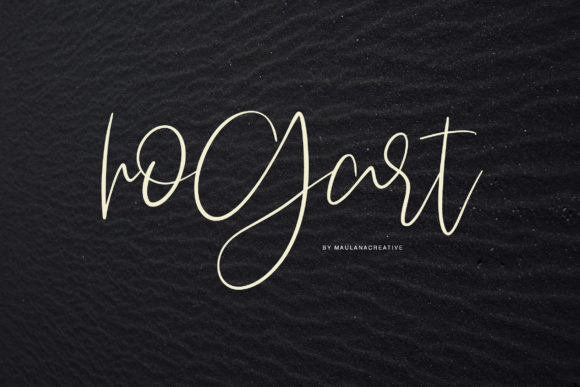
Dive into the enchanting world of Hogart Script, a captivating script font that will ignite your creative spirit. With its authentic handcrafted touch, this masterpiece transforms your designs into captivating works of art.
Each letter dances across the page with a unique character and charm that reflects the labor of love behind its creation. Hogart Script grants you the power to evoke a sense of nostalgia, elegance, and artistry in your projects.
Indulge your imagination and let the mesmerizing curves and flowing lines of Hogart Script lead you to design masterpieces. Its versatility knows no bounds, making it the perfect companion for branding, invitations, packaging, and any project yearning for a touch of timeless elegance.
Don't resist the allure of Hogart Script. Embrace its enchanting beauty and allow your creativity to soar. Let this exquisite font inspire you to create designs that captivate hearts and make a lasting impression.